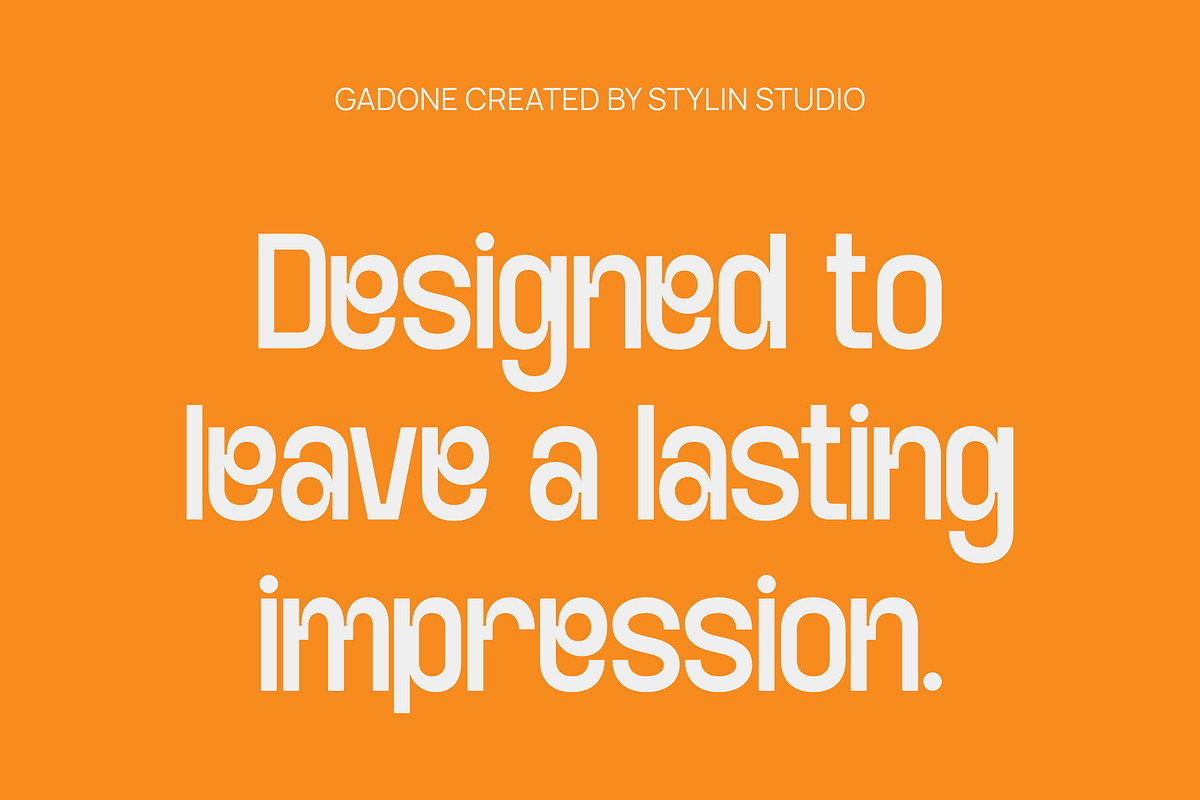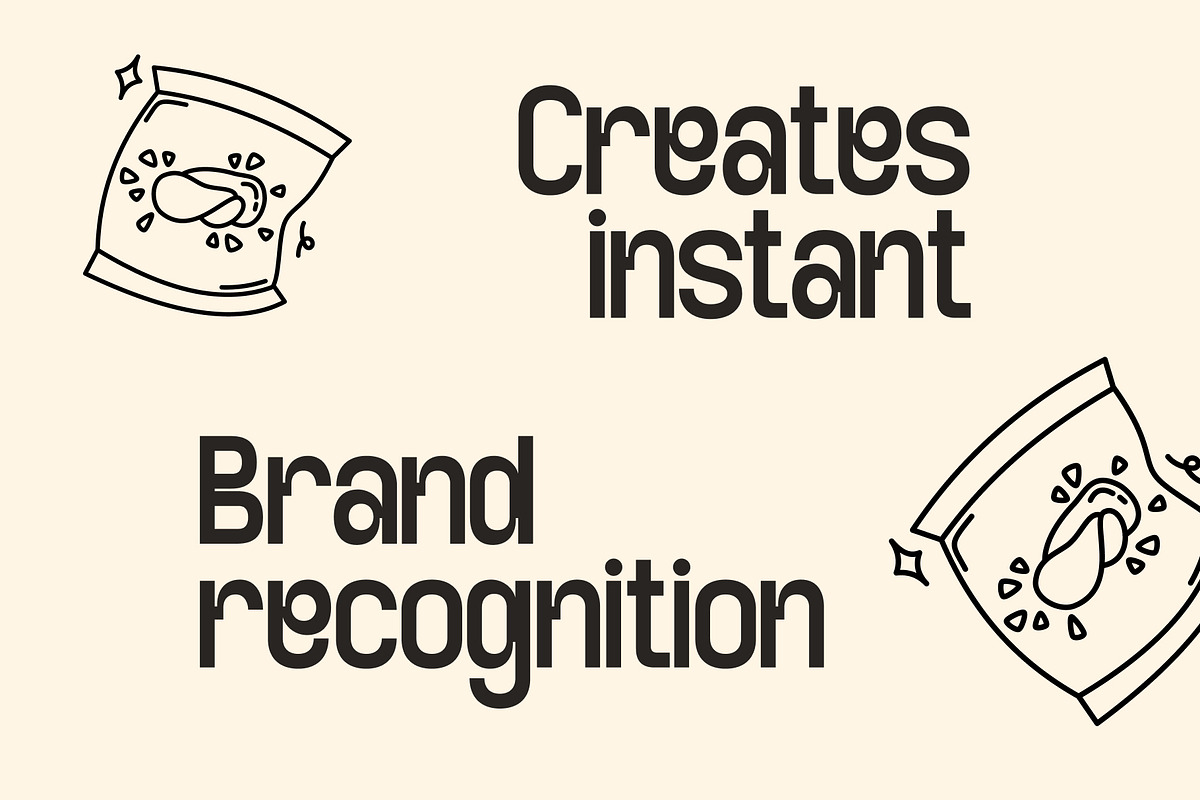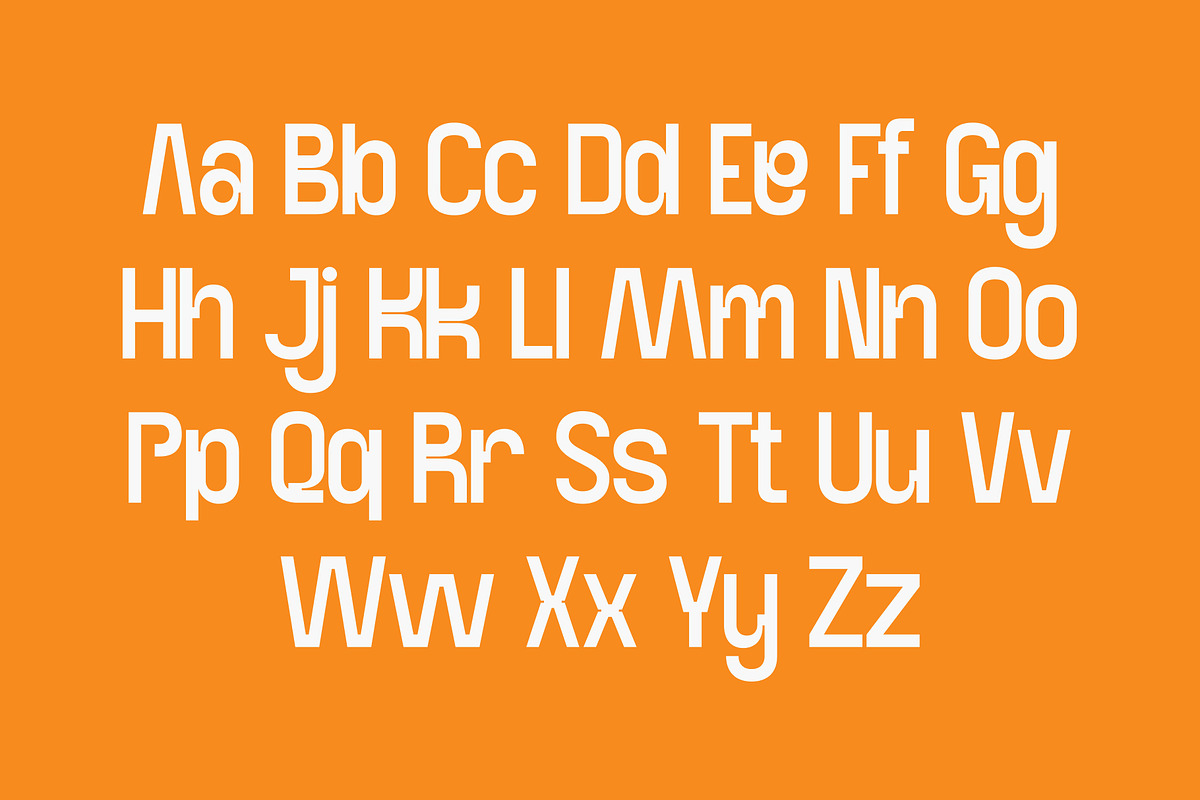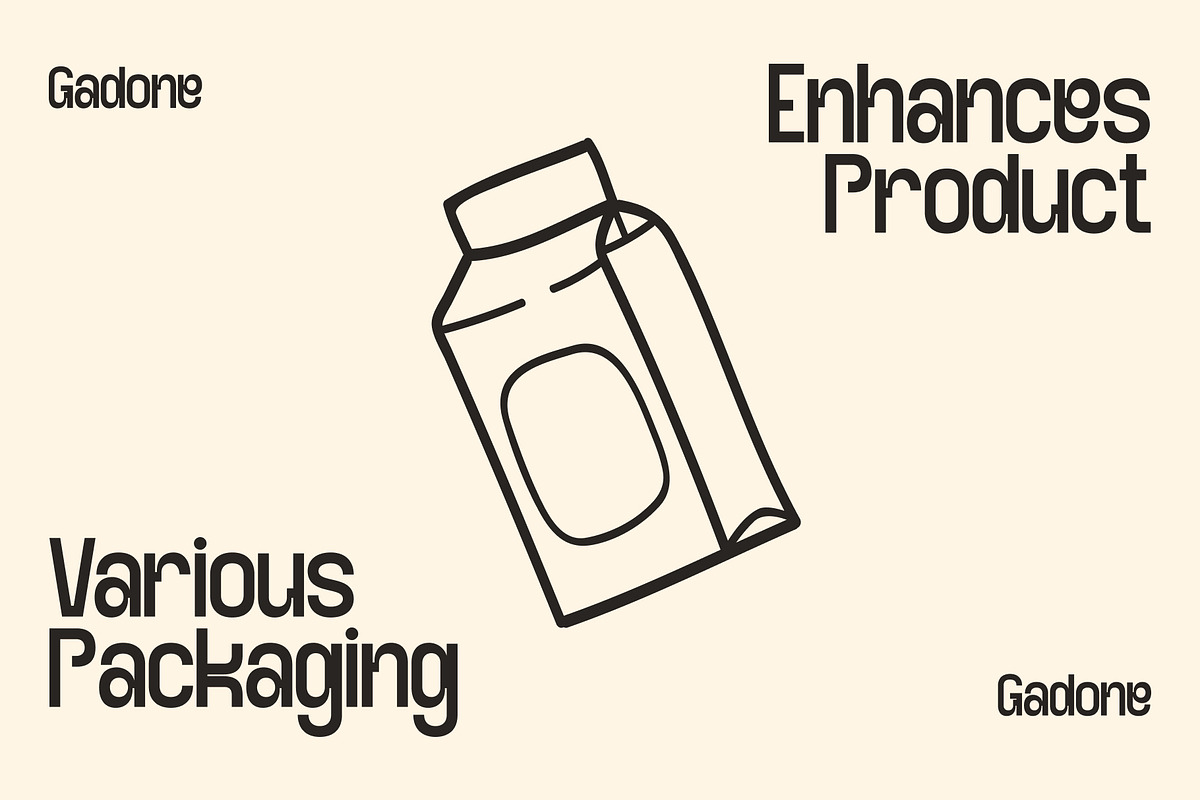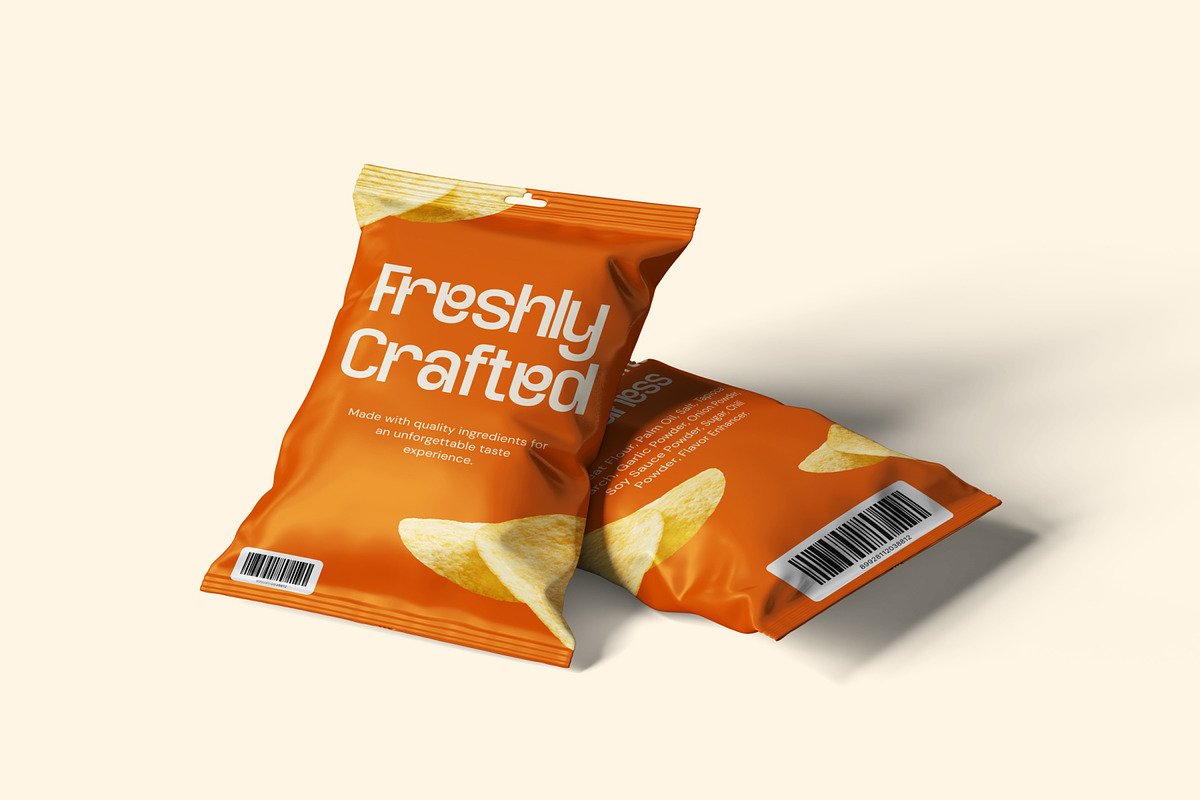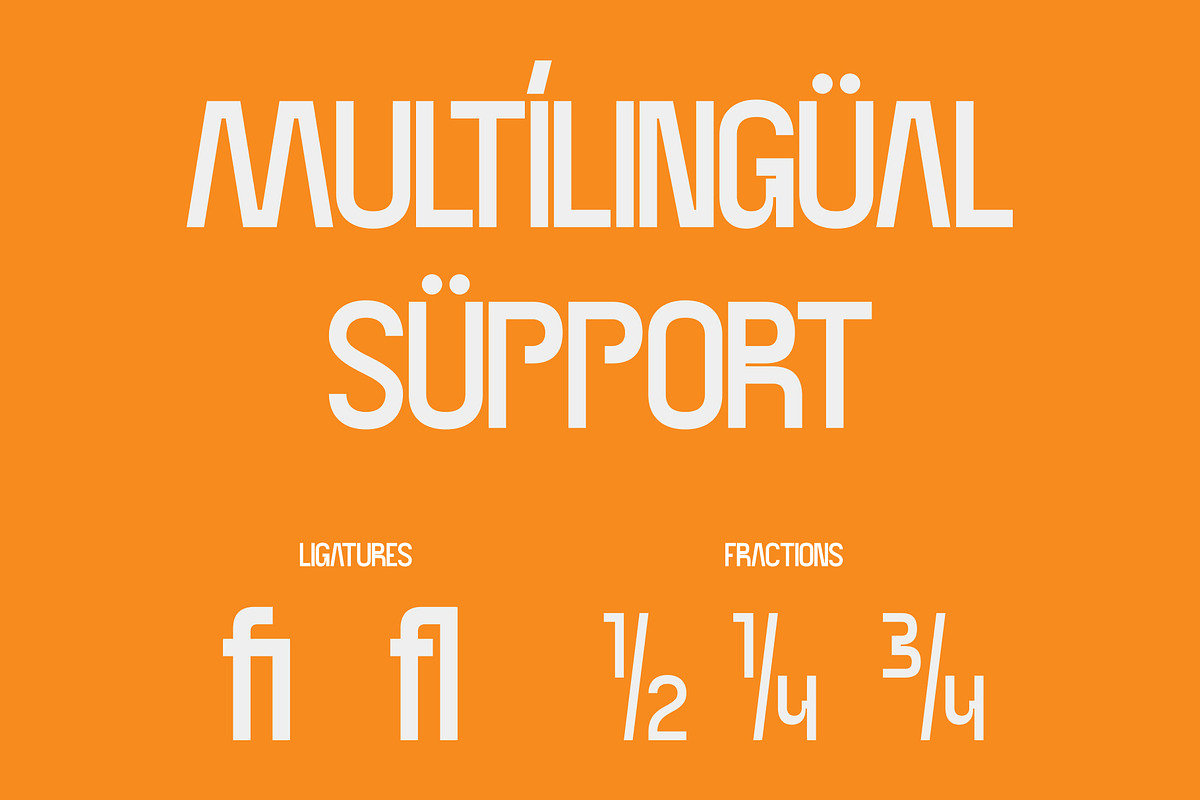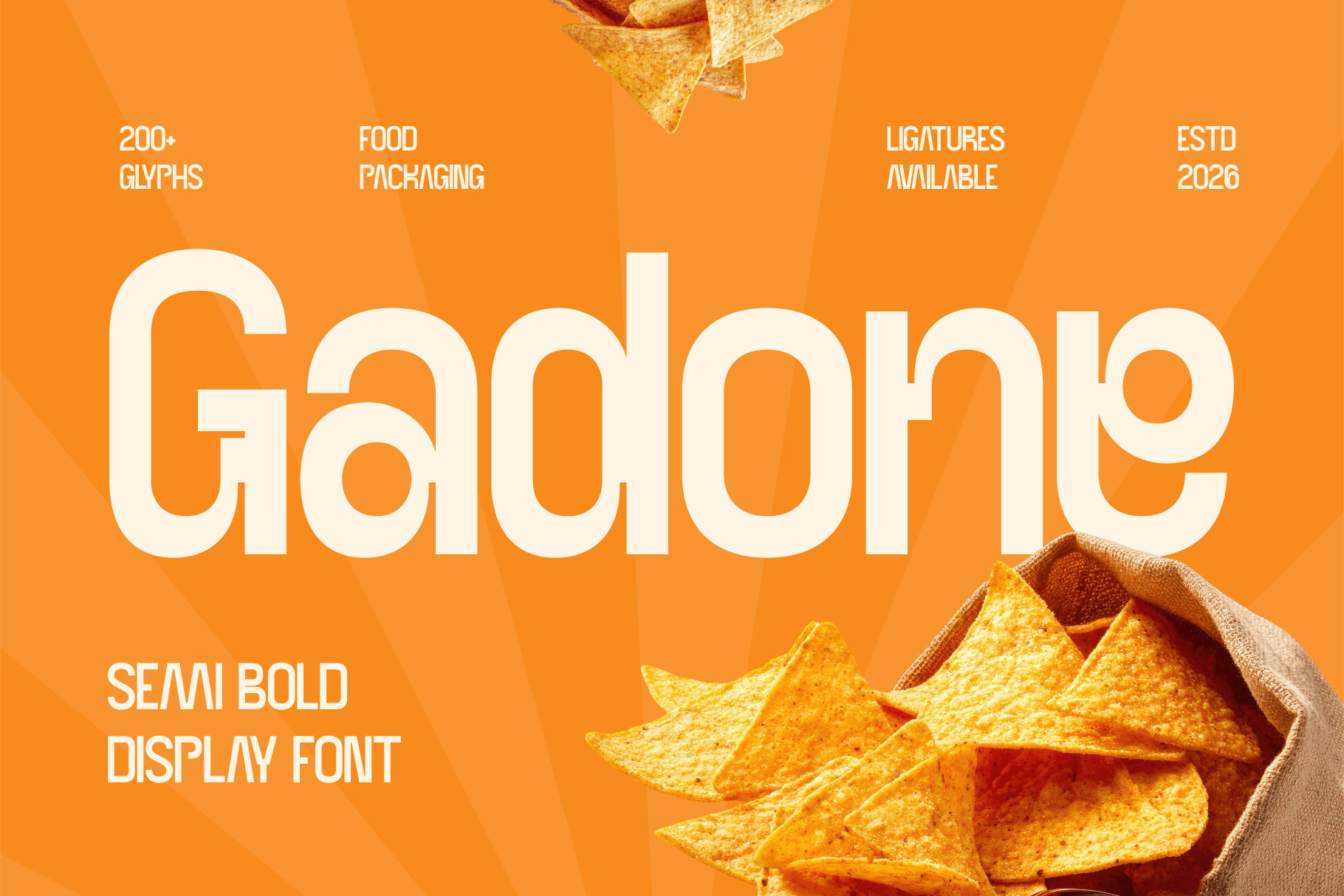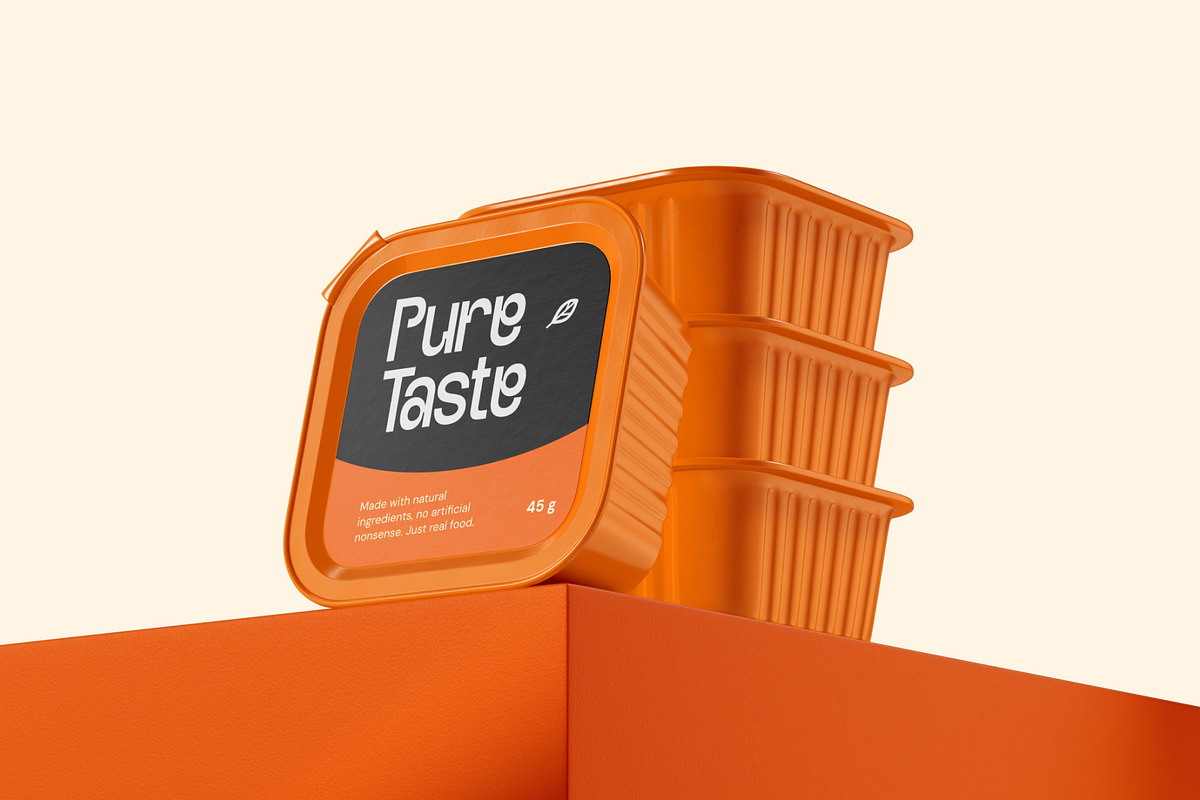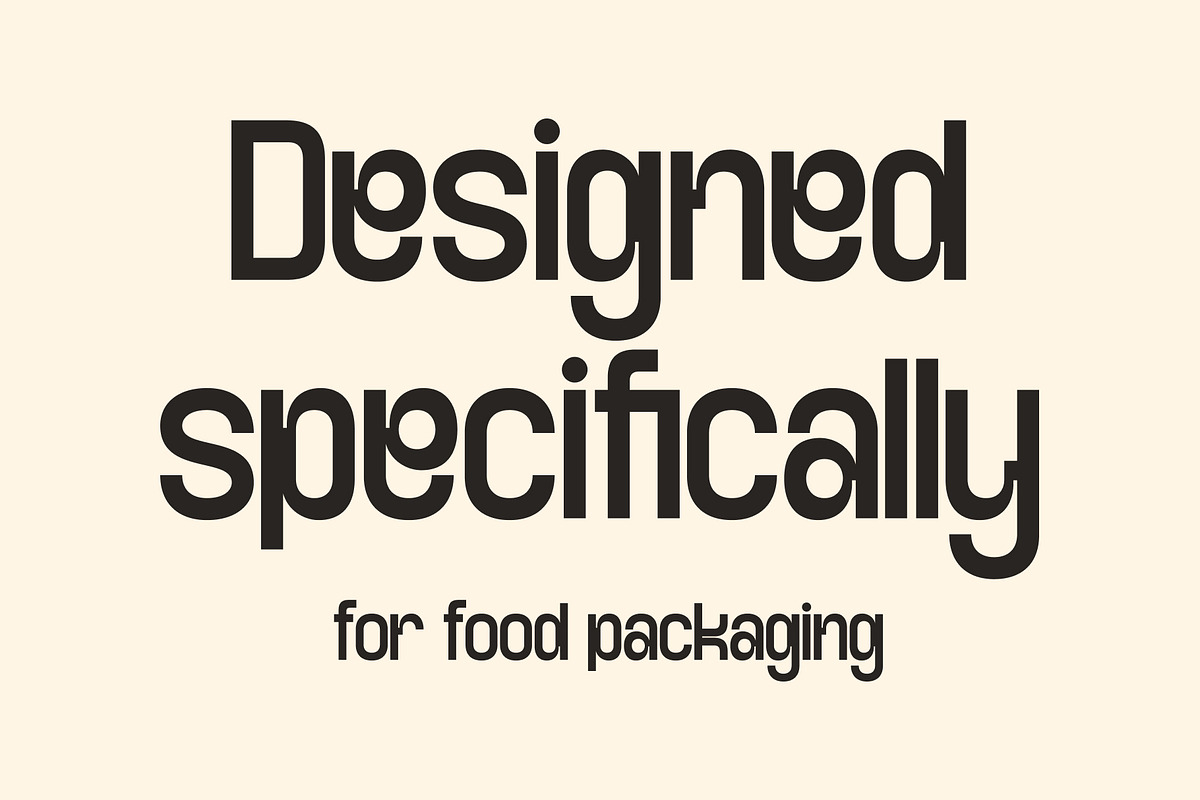
Food Packaging – Gadone Font
Food Packaging – Gadone Font is a bold and flavorful display typeface crafted to bring energy, warmth, and personality into every design. With its strong curves, stylish character shapes, and modern handcrafted feel, Gadone creates an eye-catching look that feels both fun and premium. Perfect for projects that want to express delicious branding, creativity, and visual impact.
Full Character Set: Uppercase, lowercase, numbers, symbols, and punctuation
From food packaging and café branding to restaurant menus and snack labels, Gadone delivers a bold yet approachable presence. Its clean readability combined with a stylish modern touch makes it ideal for logos, product packaging, social media promotions, posters, and culinary branding projects.